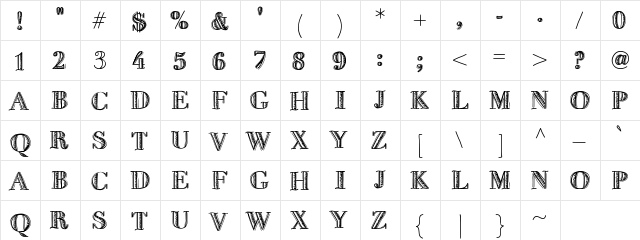
FiveDollar Medium Free Font
FiveDollar Medium
Complete FiveDollar Medium glyph index. Displaying only characters natively supported by FiveDollar Medium font.
Design Context for FiveDollar
FiveDollar is a composed and adaptable typeface that performs quietly and consistently across a wide range of design contexts.